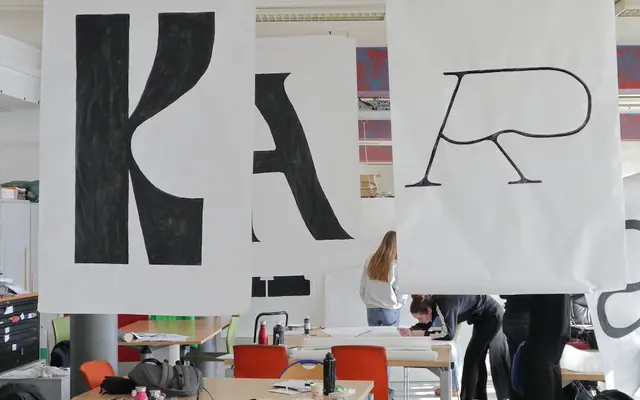
Et si on dansait!
A typeface born from a 4-day student workshop led by Corentin Noyer with DNMADE and DSAA students in Toulouse in February 2024.
Created during an intensive workshop at the Lycée Général et Technologique des Arènes in Toulouse, the typeface brought together 15 students from DNMADE and DSAA programmes over four days. The project sits within a pedagogical tradition of collaborative type creation, where process and experimentation are as much the point as the resulting letterforms.
Created in a 4-day workshop with design students, the typeface appears to be an experimental or expressive display face given its workshop context and exclamatory name suggesting movement and energy.